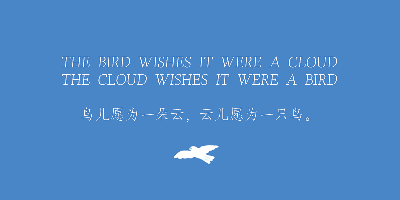
This versatile typeface is perfect for editorial design, magazine layouts, book covers, branding projects, poster design, web headlines, social media graphics, packaging design, and modern logo creation.
Side Note Variable Font brings excitement to your design projects with its dynamic weight variations and contemporary aesthetic. This innovative variable font technology allows seamless transitions between different weights, giving designers unprecedented control over typography. The font's clean lines and balanced proportions make it incredibly versatile for both digital and print applications.
The Side Note Variable Font family includes multiple weight variations ranging from thin to bold, offering designers complete flexibility in their typographic choices. Each weight maintains the font's distinctive character while providing optimal readability across different sizes and applications.
Transform your creative projects with Side Note Variable Font Free Download today. This modern typeface combines functionality with style, making it an essential addition to any designer's toolkit. Whether you're working on corporate branding, editorial layouts, or digital interfaces, this font delivers professional results with its sophisticated appearance and technical precision.